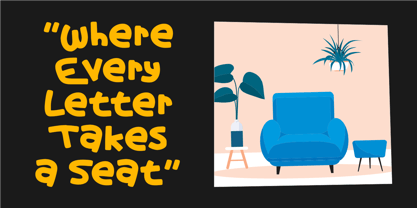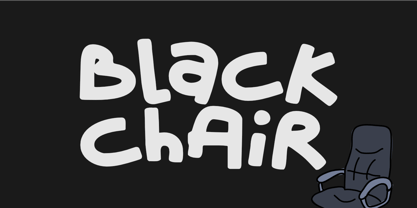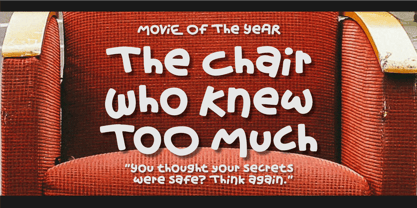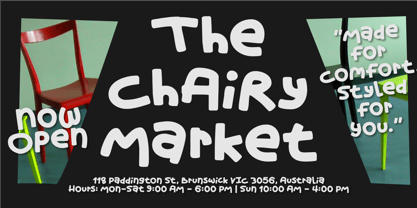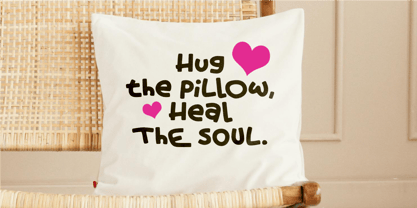
Black Chair
by Epiclinez
The Black Chair Font Family was designed by Aldy Sidik and published by Epiclinez. Black Chair contains 1 styles. More about this family
Black Chair Font is a bold, fun, and playful display typeface that instantly brings charm, humor, and personality to your designs. With thick strokes, rounded edges, and quirky letterforms, this font feels cheerful, hand-drawn, and full of character. It’s designed to make headlines pop, logos stand out, and any text look friendly and expressive. Perfect for both digital and print use, Black Chair Font works beautifully on posters, product packaging, branding projects, stickers, merchandise, apparel prints, children’s books, invitations, menu designs, and social media graphics. Its animated and joyful vibe makes it ideal for creative campaigns, fun marketing concepts, and playful themes. Whether you're designing for kids, lifestyle brands, events, or entertainment, this typeface adds the perfect mix of humor, warmth, and bold visual impact. It captures attention effortlessly and gives every word a sense of movement and charm. Black Chair Font is more than a typeface—it’s a personality. Use it to make your message feel lively, unique, and delightfully bold.